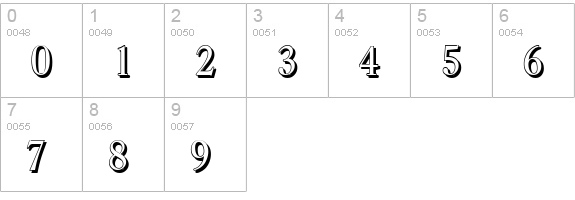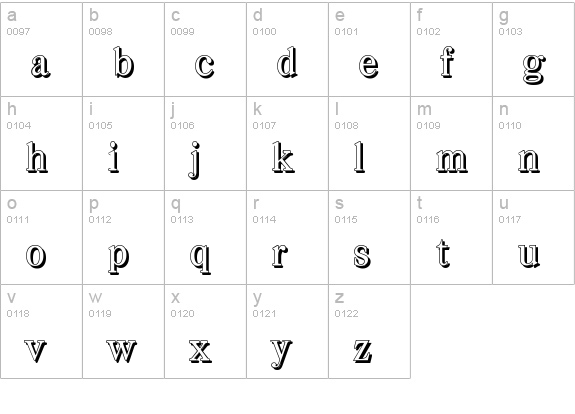
CasadShadow-Regular Font Details
CasadShadow-Regular is the standard, neutral variant in the CasadShadow typeface family \xE2\x80\x94 well suited to general body text, paragraphs, and standard typographic work.
CasadShadow-Regular is a modern and stylish font that exudes sophistication and elegance. With its sleek lines and unique shadow effect, this font is perfect for creating eye-catching designs that demand attention. The versatility of CasadShadow-Regular makes it suitable for a wide range of design projects, from branding to packaging to social media graphics. What makes CasadShadow-Regular even more appealing is that it is available for free download at FontsMarket.com. This means that you can easily access this stunning font and use it in your projects without any cost. Whether you are a professional designer or a hobbyist looking to add a touch of class to your creations, CasadShadow-Regular is the perfect choice. Download it today and elevate your designs with this exceptional font.